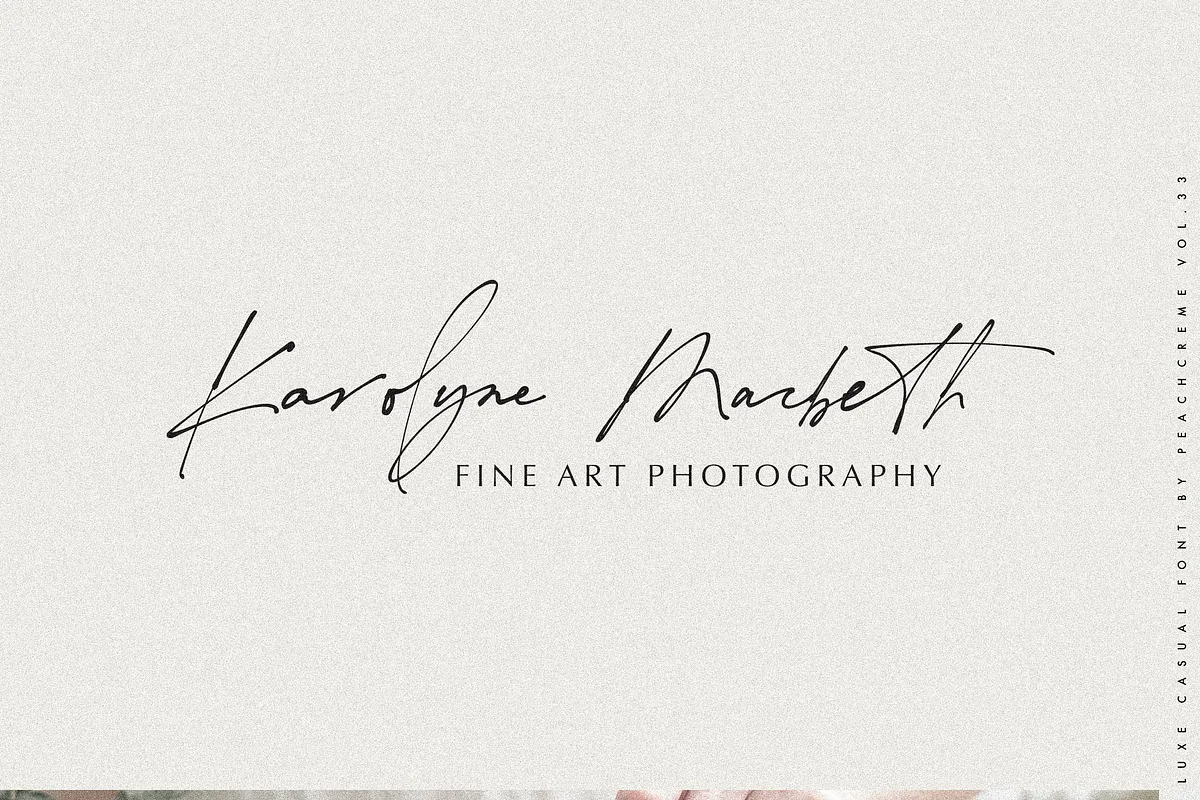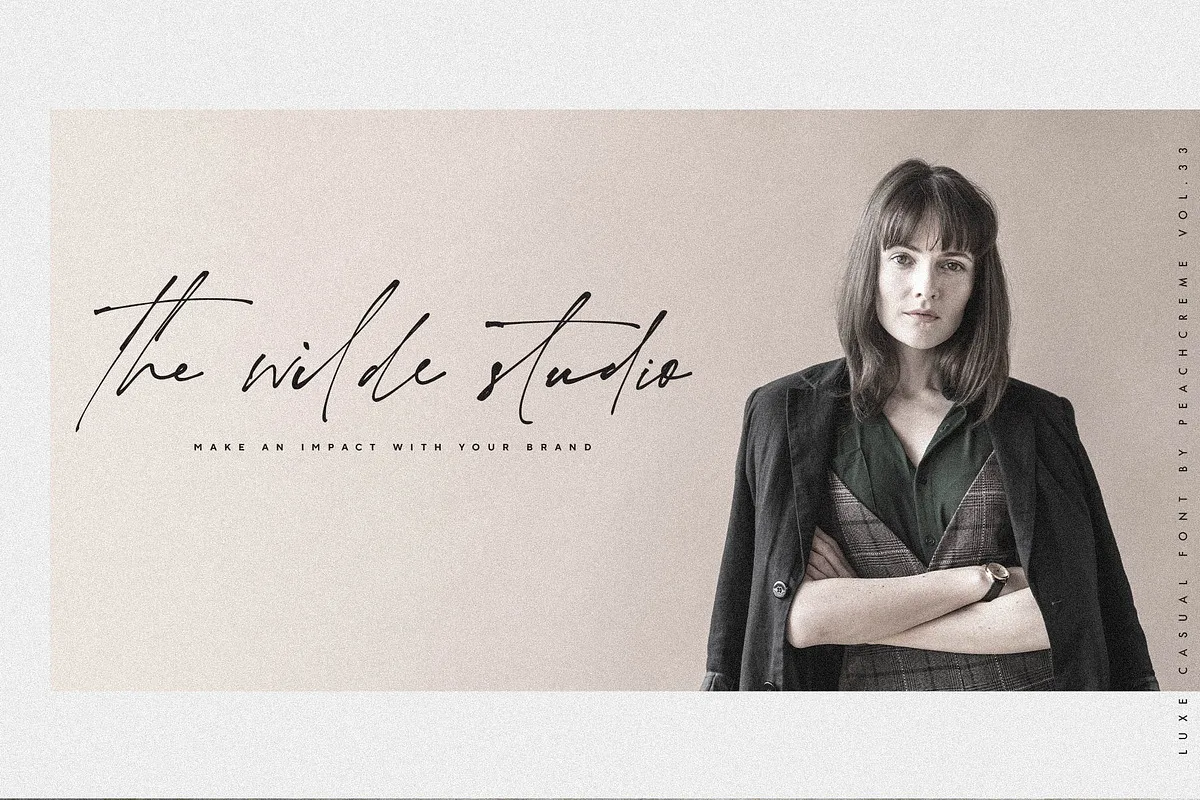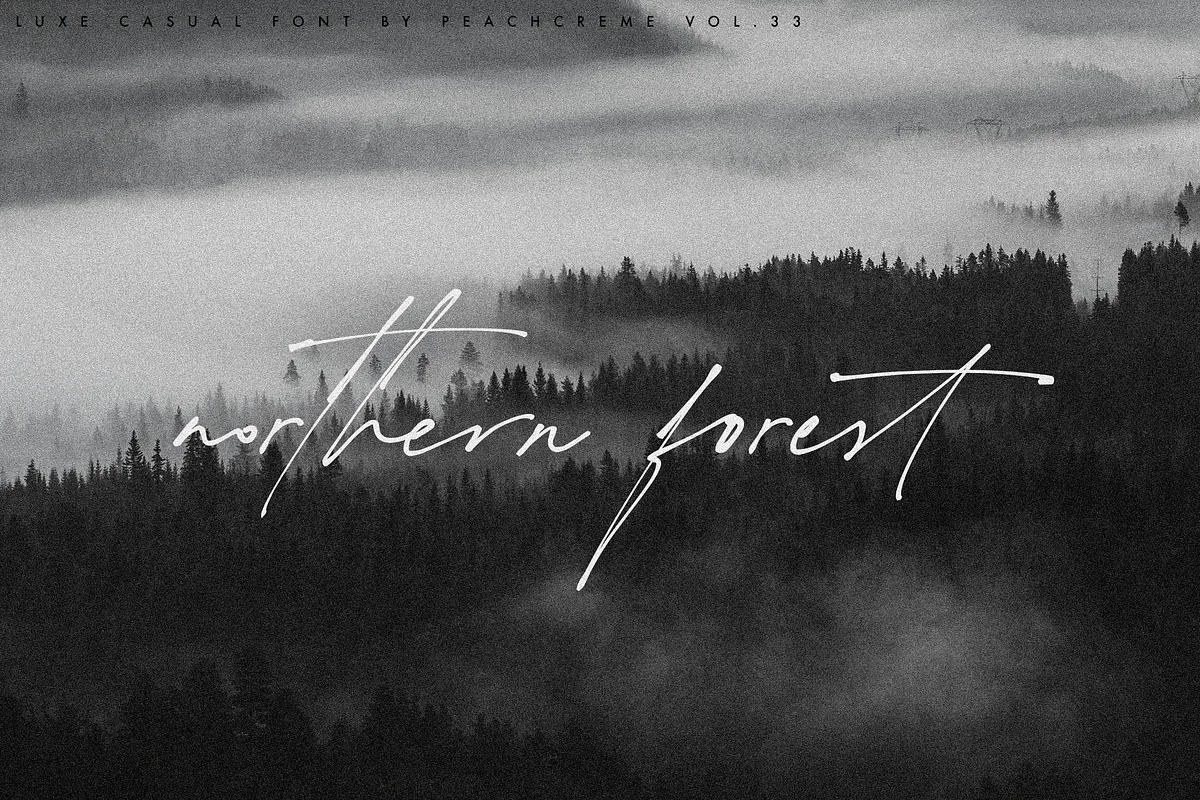
The Impressionist is a luxe chic font. It is about fleeting vision, a touch of moments. some letters may be illegible, but their shapes arouse emotions. sometimes in design emotions are more important.
It is perfect for branding projects, logo, wedding designs, social media posts, advertisements, product packaging, product designs, label, photography, watermark, invitation, stationery and any projects that need handwriting taste.
It includes a full set of uppercase and lowercase letters, multilingual symbols, numerals, punctuation and 134 ligatures. The font has a smooth wet ink texture.
The Impressionist Font Preview